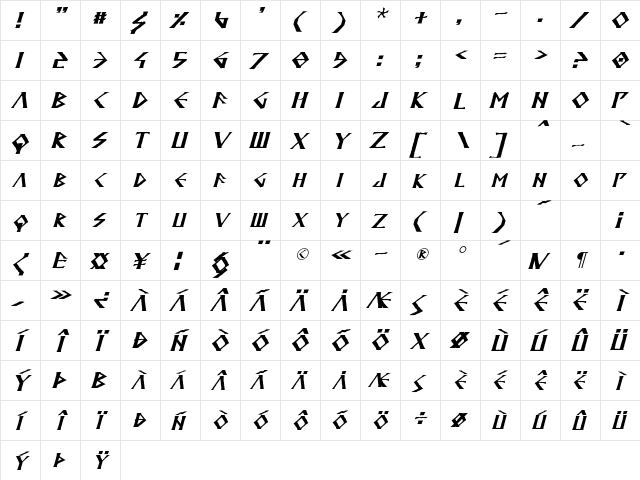
Anglodavek Italic
| Designer | Neale Davidson |
Design Context for Anglodavek Typeface
Anglodavek is a composed and adaptable typeface that performs quietly and consistently across a wide range of design contexts. Its italic angle brings a sense of urgency and motion to the letterforms.
Pro Tip: Try Anglodavek for annotation and caption copy alongside an upright companion — the contrast in angle creates a dynamic but ordered typographic system.